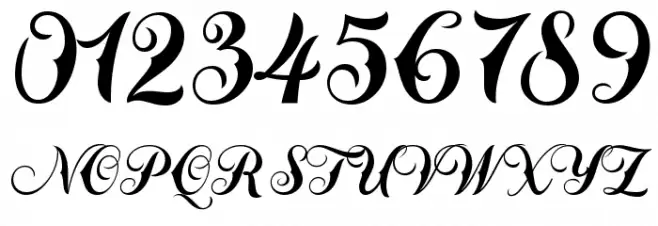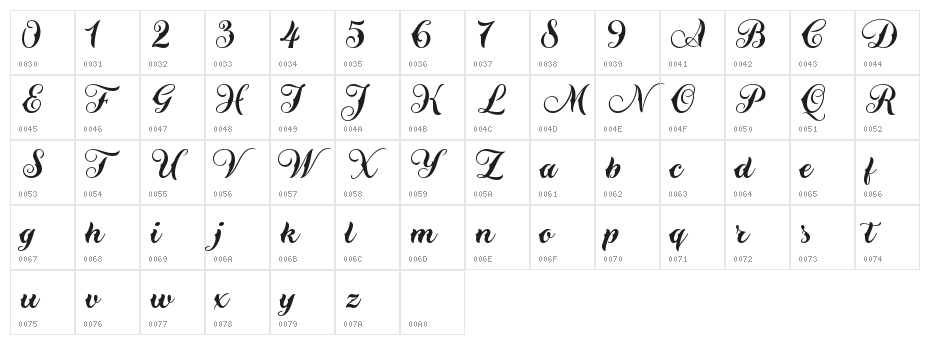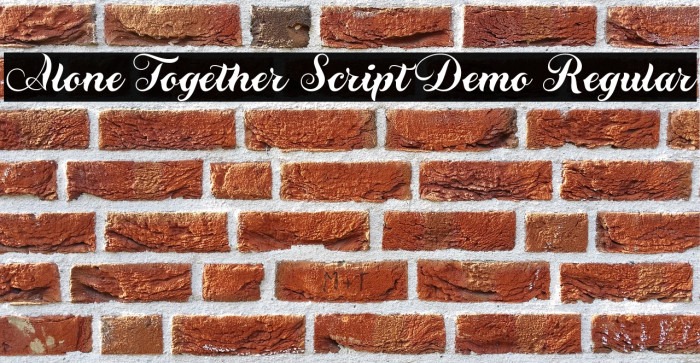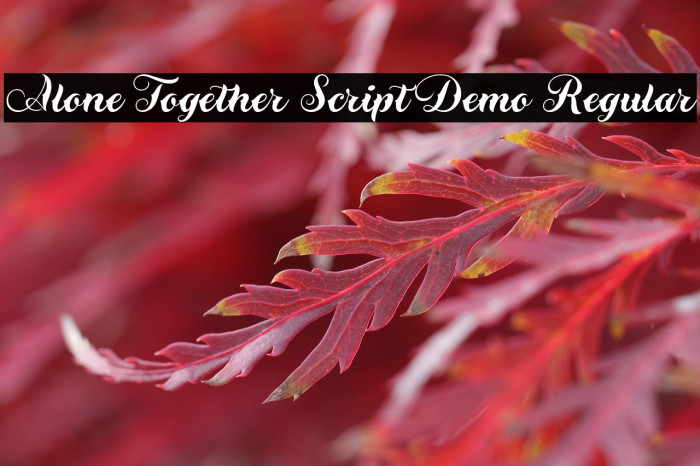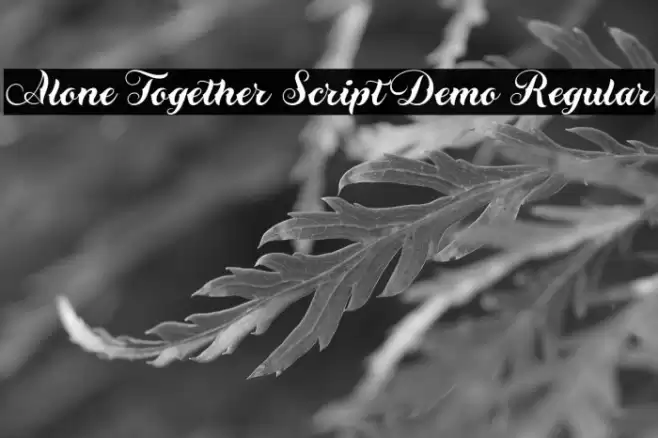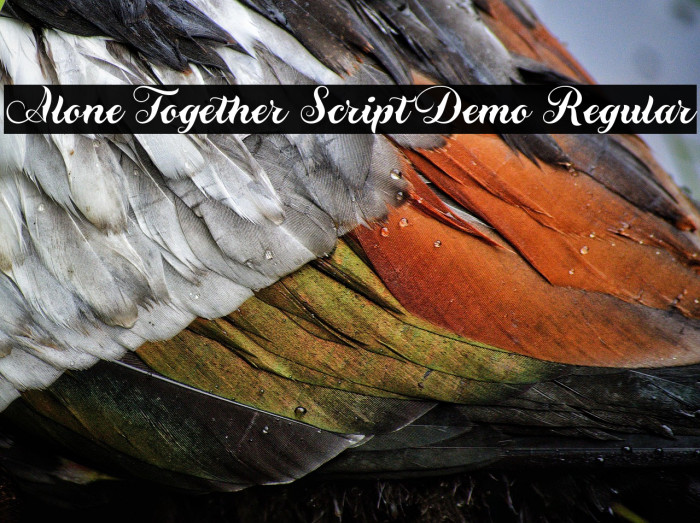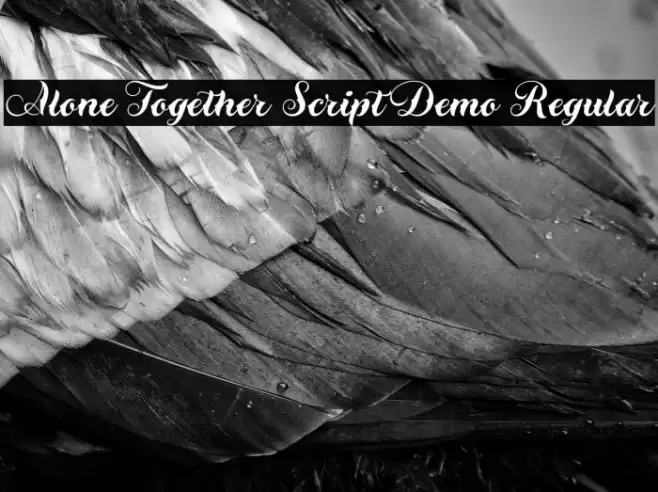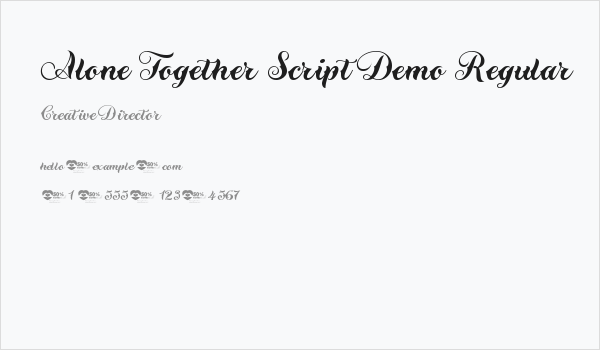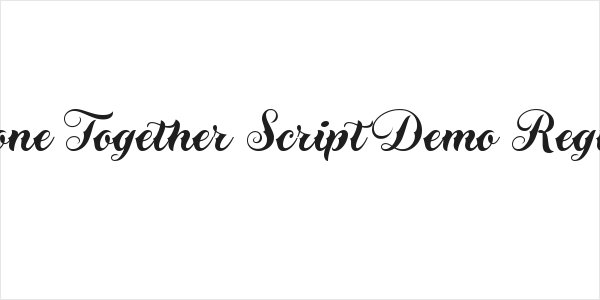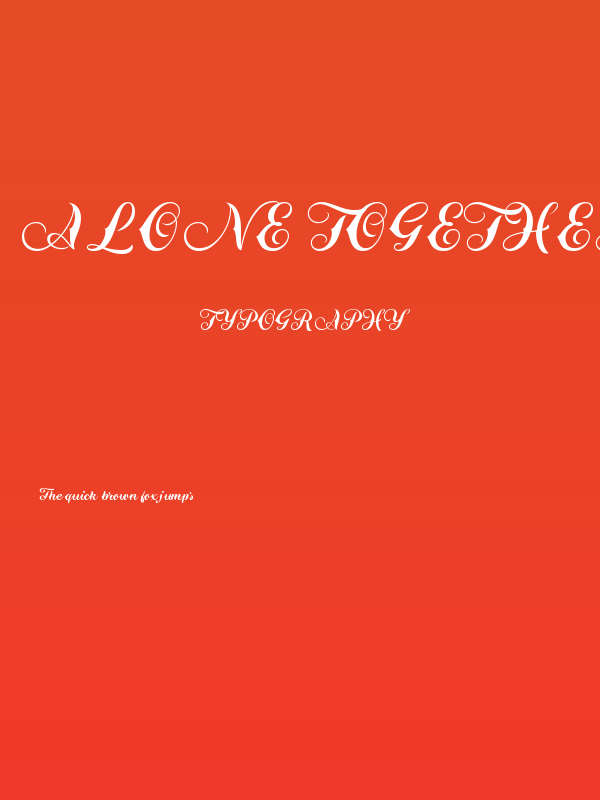
Alone Together Script Demo Regular Font
Alone Together Script Demo Regular Description
This elegant script font features a flowing, cursive style with intricate swirls and flourishes. The uppercase letters are particularly ornate, with decorative loops and curves that give a sense of sophistication and grace. The lowercase letters maintain a smooth and connected appearance, enhancing readability while preserving the font's artistic flair. Numbers are bold and slightly exaggerated, matching the overall aesthetic. The font exudes a sense of romance and elegance, making it ideal for formal invitations, branding, and decorative purposes.
| Proposed Projects | Ideal for wedding invitations, luxury branding, greeting cards, and decorative signage. |